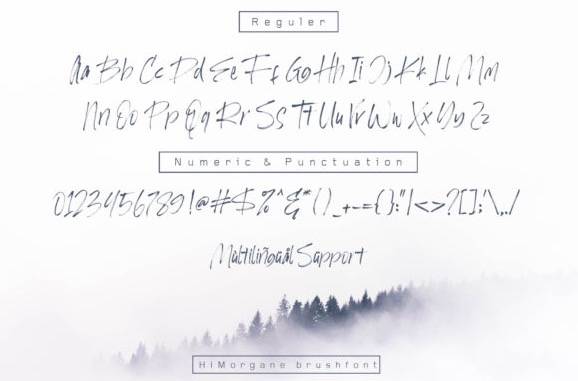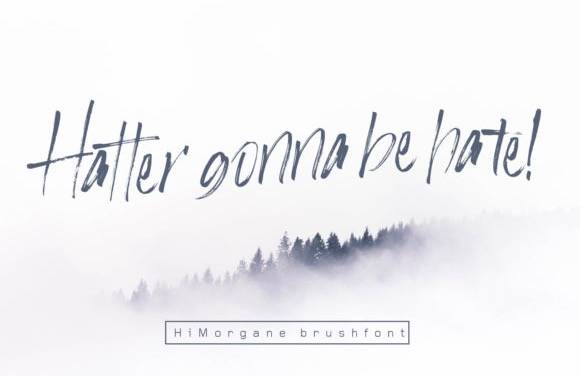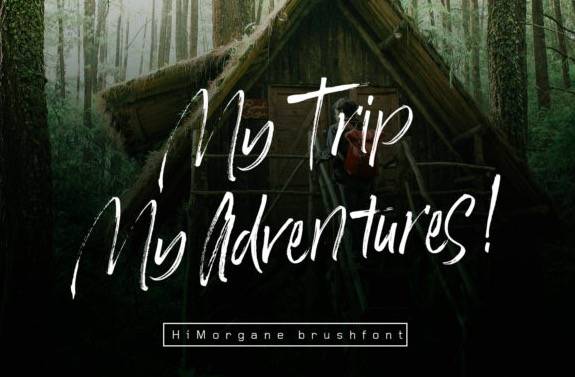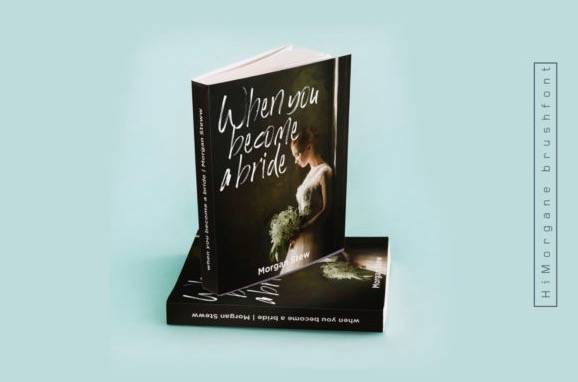
Hi Morgane Font is a new modern brush typeface. This high-quality font was created by Sabrcreative. Hi Morgane is a Hand Brush font for professional designers. It’s was designed perfectly from paint and brush.
Hi Morgane Font is perfect for extensive designing approaches. You can use this brush font for many purposes. Such as designing a poster or a cover layout, designing a brand logo, brochure or wedding, invitations card designs, etc.
Hi Morgane Brush Font